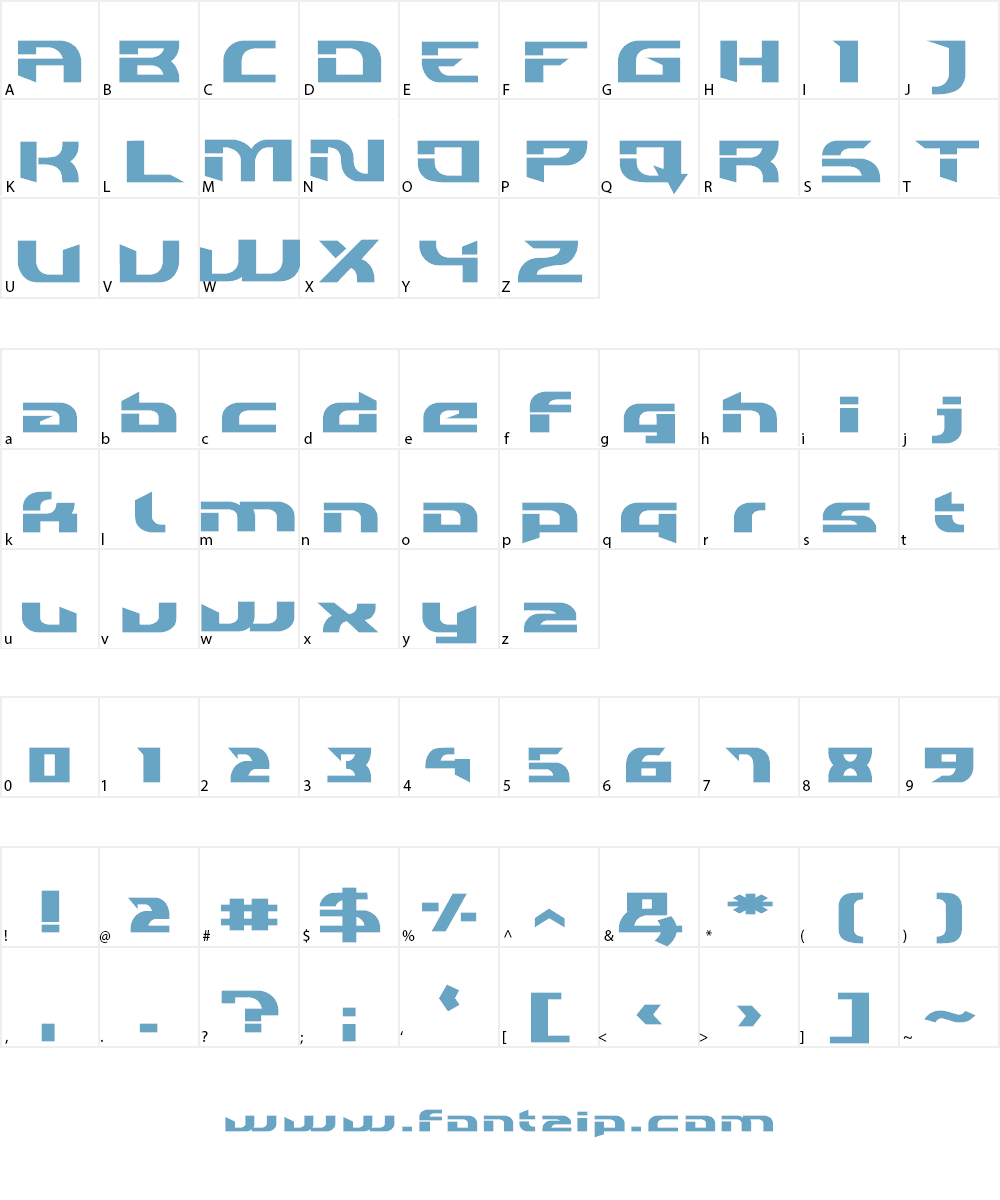
I am really glad that my font "Individigital" is sort of popular, so I figured to evolve it a bit so this is the first version called Individigital Black. Slight changes in weight and forms. In case of any question, feedback feel free to drop a line, I 'd appreciate that.